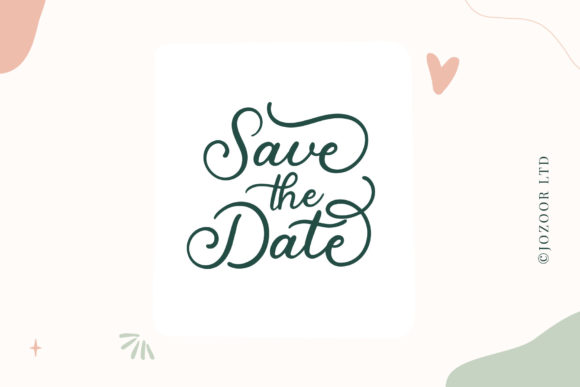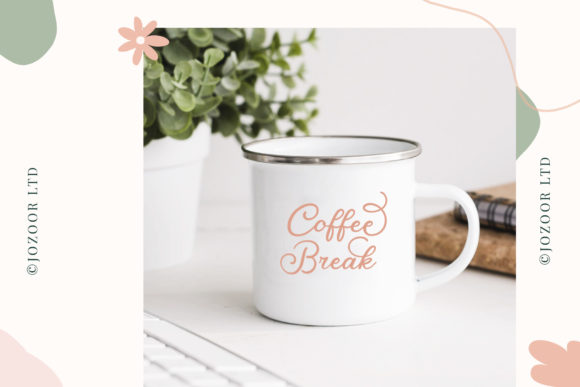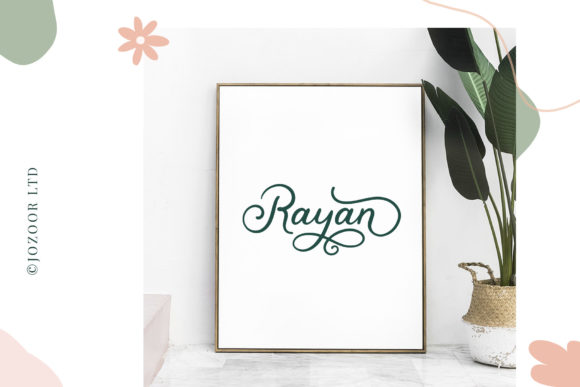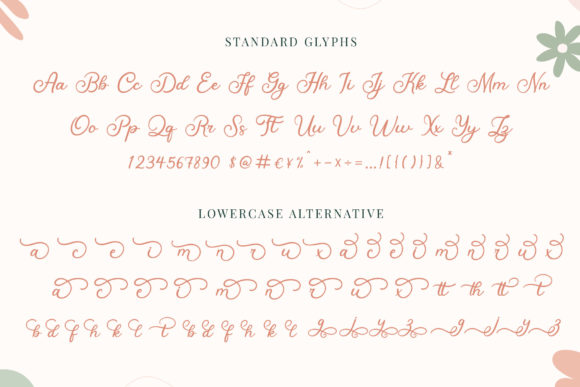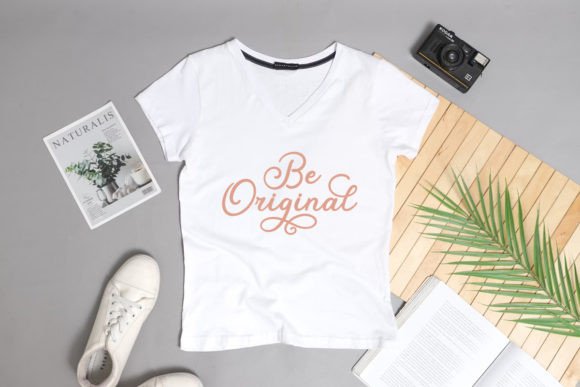
Introducing Creative Brave Font: Elevate Your Designs with Elegance
In the world of typography, a font can make or break a design. For designers and crafters looking to add a touch of sophistication and charm to their projects, the Creative Brave Font is an excellent choice. This stylish, delicate, vintage, and flowing handwritten script font is designed to elevate your designs and leave a lasting impression.
What Makes Creative Brave Font Stand Out?
Creative Brave Font boasts beautiful and well-balanced characters that make it a versatile addition to any design project. Its elegant and flowing script is reminiscent of traditional handwriting, yet it has a modern twist that sets it apart from more traditional fonts. Whether you’re working on a branding project, creating wedding invitations, or designing a logo, this font is sure to impress.
Key Features of Creative Brave Font
• Stylish and Delicate: The font’s intricate details and delicate lines make it perfect for designs that require a touch of elegance.
• Vintage and Flowing: The vintage-inspired script has a flowing quality that adds a sense of movement and sophistication to any design.
• Well-Balanced Characters: Each character is carefully crafted to ensure that the font is easy to read and visually appealing.
• PUA Encoded: The font is PUA (Private Use Area) encoded, which means you can access all the glyphs and swashes with ease, giving you greater flexibility and creative control.
One of the standout features of Creative Brave Font is its versatility. It can be used in a wide range of design projects, from:
• Branding and Logos: Create a lasting impression with a unique and memorable logo that showcases your brand’s personality.
• Wedding Invitations and Stationery: Add a touch of romance and elegance to your wedding invitations, save-the-dates, and other stationery.
• Packaging and Product Design: Elevate your product packaging with a font that exudes sophistication and style.
• Digital Media: Use the font in your digital projects, such as social media graphics, blog posts, and website designs.
Why Choose Creative Brave Font?
With so many fonts available, why choose Creative Brave Font? Here are just a few reasons:
• Unique and Eye-Catching: The font’s unique design ensures that your projects will stand out from the crowd.
• Ease of Use: The PUA encoding makes it easy to access all the glyphs and swashes, saving you time and effort.
• High-Quality Design: The font is designed with high-quality craftsmanship, ensuring that it looks great in any design.
If you’re looking for a font that will elevate your designs and add a touch of elegance, look no further than Creative Brave Font. Its stylish, delicate, vintage, and flowing script makes it perfect for a wide range of design projects. With its PUA encoding and well-balanced characters, this font is sure to become a staple in your design toolkit.
Get Creative with Creative Brave Font